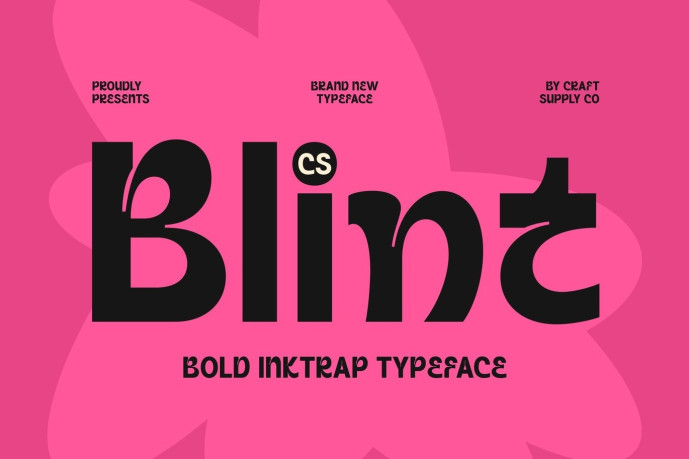
Blint – Inktrap Font
Designer: Craft Supply Co.
CS Blint – Bold Sans Serif Font: Where Playful Inktraps Meet Bold Visual Impact Strong Letterforms with Expressive Character This is a bold sans serif font designed to capture attention through its confident letterforms and playful personality. Built with powerful proportions and clean geometry, it delivers a striking visual presence that instantly energizes headlines and display typography.
Playful Inktraps for Clarity and Distinctive Style This font combines functional precision with creative flair. Originally inspired by practical ink traps that improve readability, these carefully crafted cut-ins also become a defining visual feature, adding depth and originality to each letterform. The result is a font that feels modern, bold, and uniquely expressive while maintaining exceptional legibility.
Modern Design with Bold Visual Impact This font creates a distinctive visual identity that balances functionality and creativity. Its crisp forms communicate strength and confidence, while the inktraps introduce a fresh contemporary aesthetic that enhances both print and digital applications. This combination gives the font a unique dimension that stands out across a variety of design styles.
Perfect for Displays, Posters, and Titles Perfect for display typography, posters, titles, flyers, magazine covers, logos, packaging, editorial layouts, advertising campaigns, and other creative projects that require bold and impactful typography. Its playful inktrap details and strong visual presence make it ideal for designs that communicate confidence, originality, and modern style.